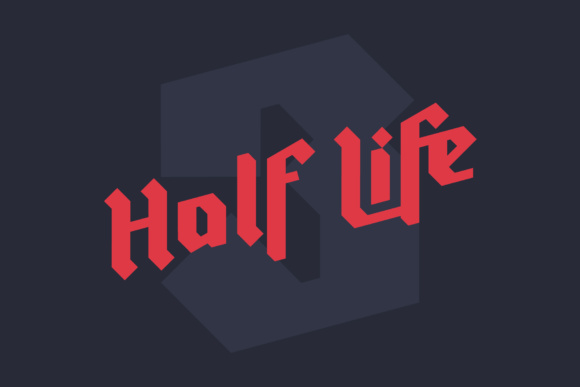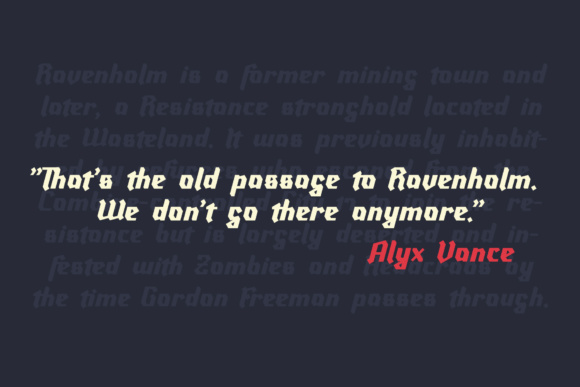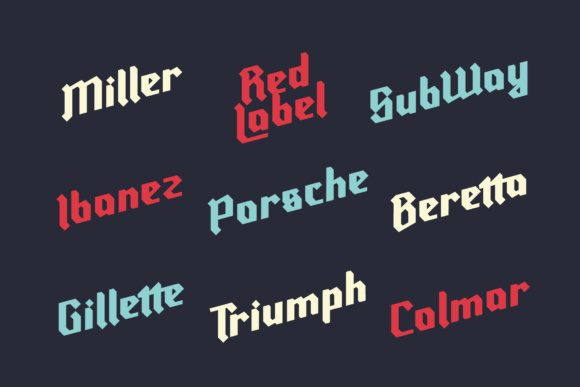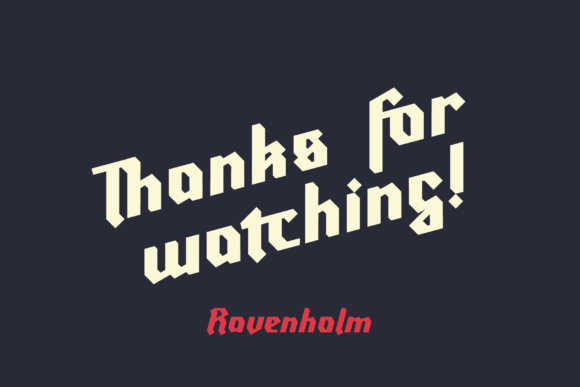
Introduction to Ravenholm Slant Font
Ravenholm is a stunning blackletter font, inspired by the Half Life game.
It’s powerful and retro, but has a surprisingly fresh breath of the Gothic culture .